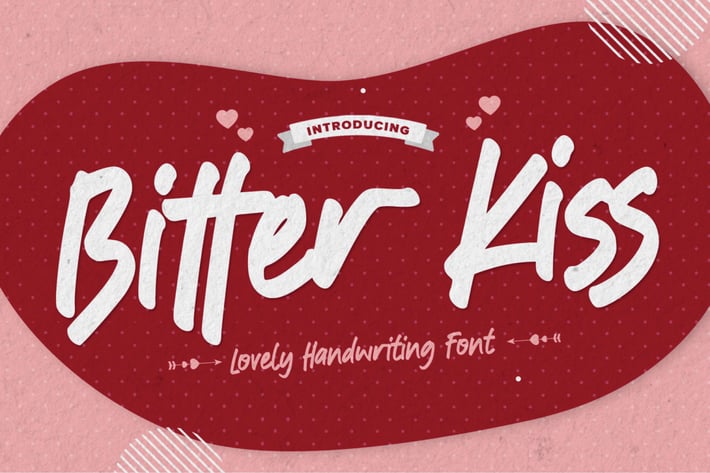
Bitter Kiss - Lovely Handwritten Font
Bitter Kiss - Lovely Handwritten Font with a natural style and dramatic movement. Crafted manually with love and passion, This font is great for your next creative project such as logos, printed quotes, invitations, cards, product packaging, headers, Logotype, Letterhead, Poster, Label, and etc.